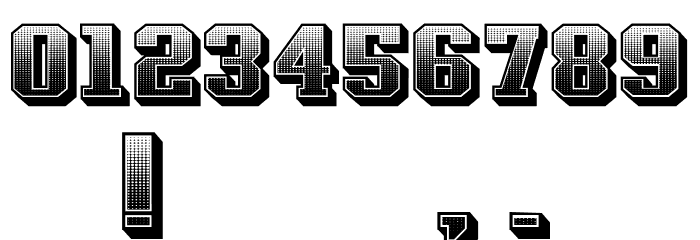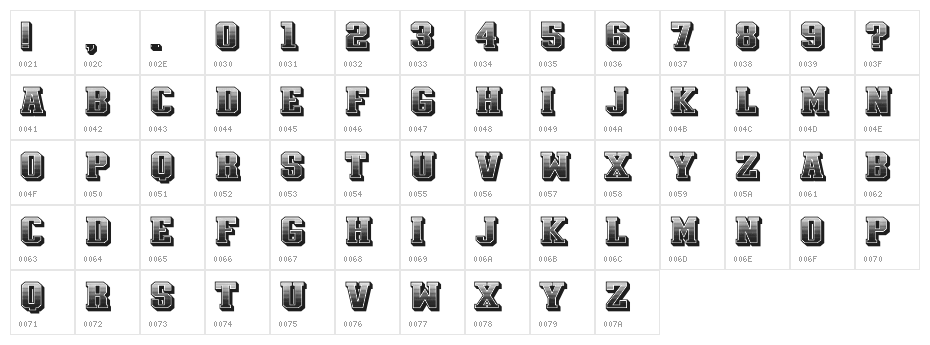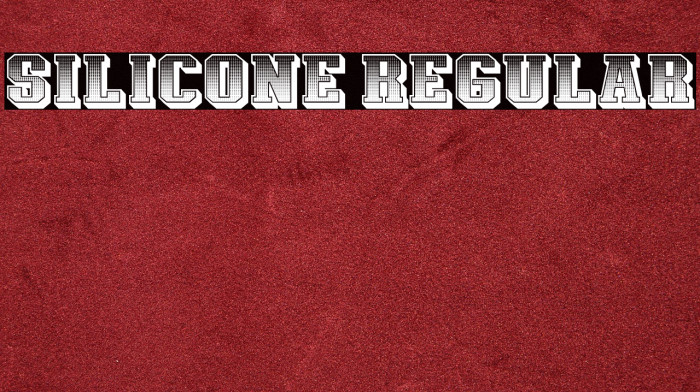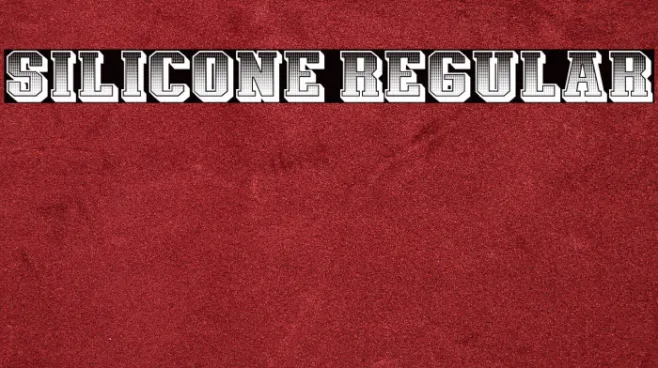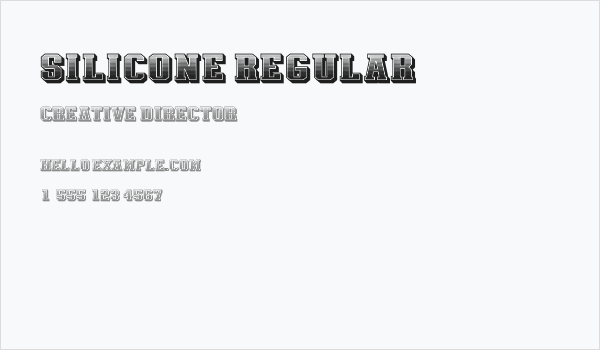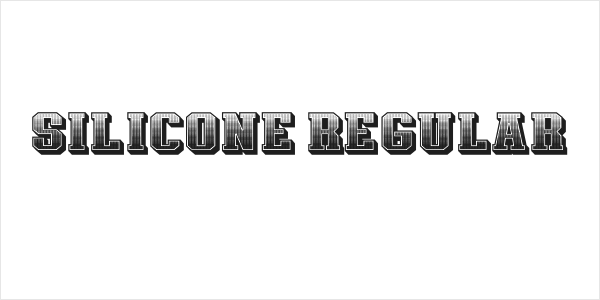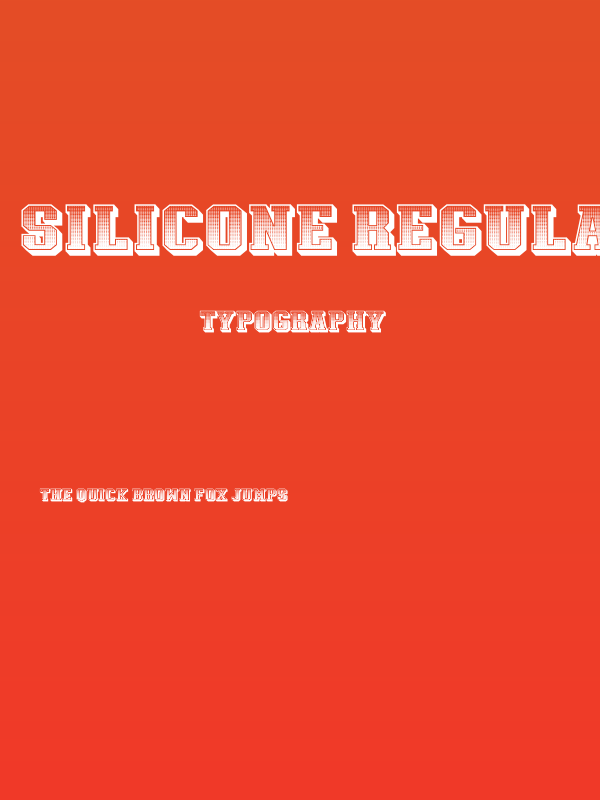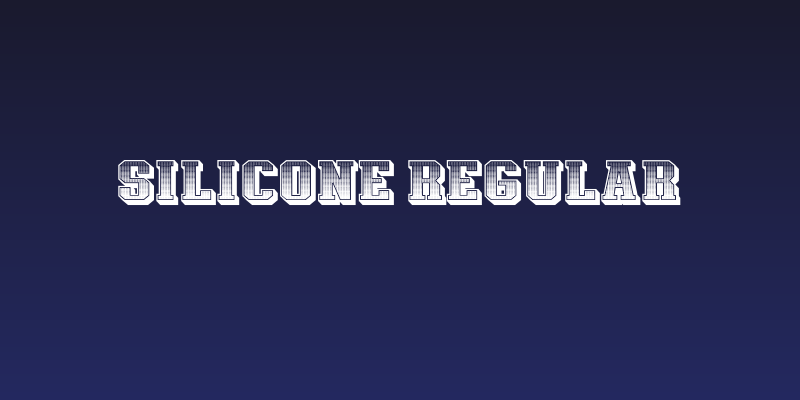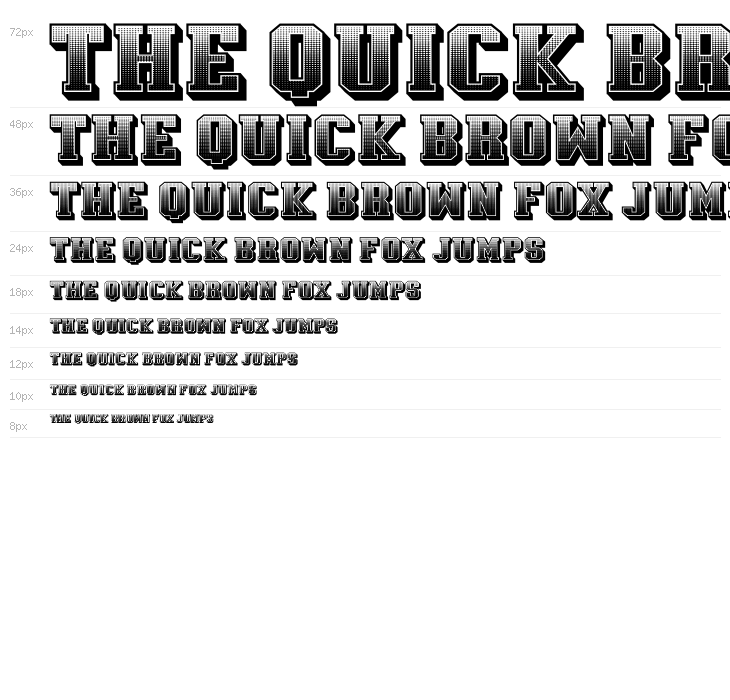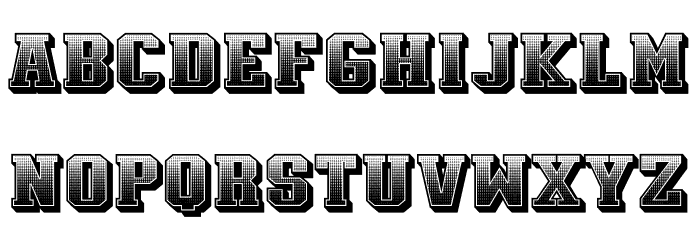
Silicone Regular Font
Silicone Regular Description
This font features a bold, decorative style with a three-dimensional effect that gives it a striking appearance. The characters are outlined with a thick border and filled with a dotted pattern, creating a sense of depth and texture. The uppercase letters are particularly prominent, with sharp angles and a strong presence. The numerals and special characters maintain the same bold and textured style, ensuring consistency across all glyphs. This font is designed to capture attention and make a statement, making it ideal for use in headlines, posters, and other display purposes.